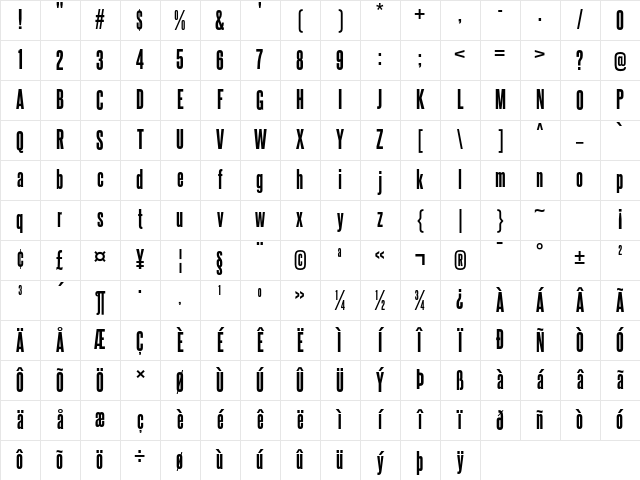
Steelfish ExtraBold Free Font
Steelfish ExtraBold
Design Context for Steelfish
Steelfish is a composed and adaptable typeface that performs quietly and consistently across a wide range of design contexts. Its bold stroke weight gives it real presence on the page.